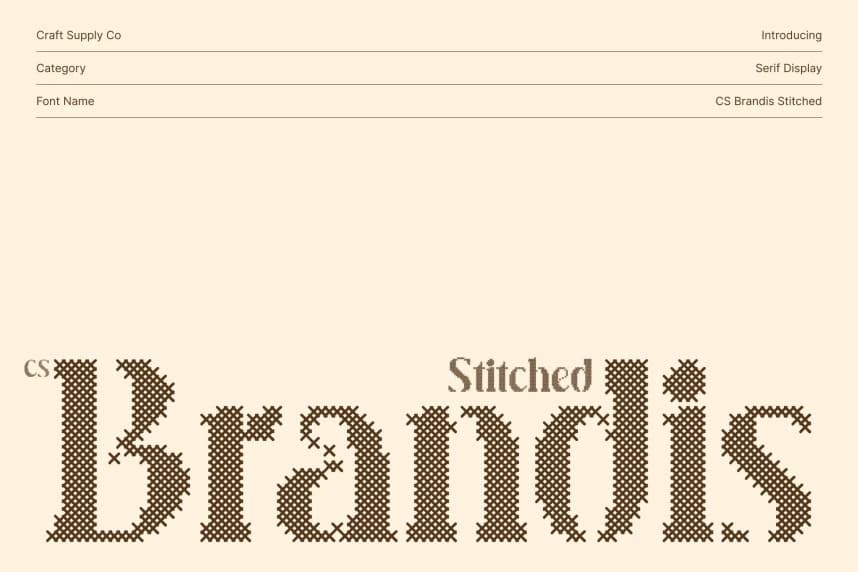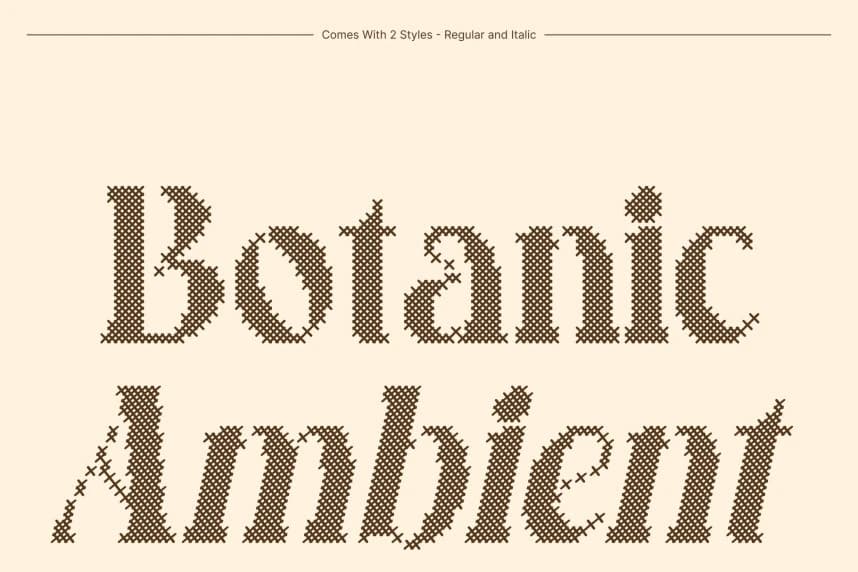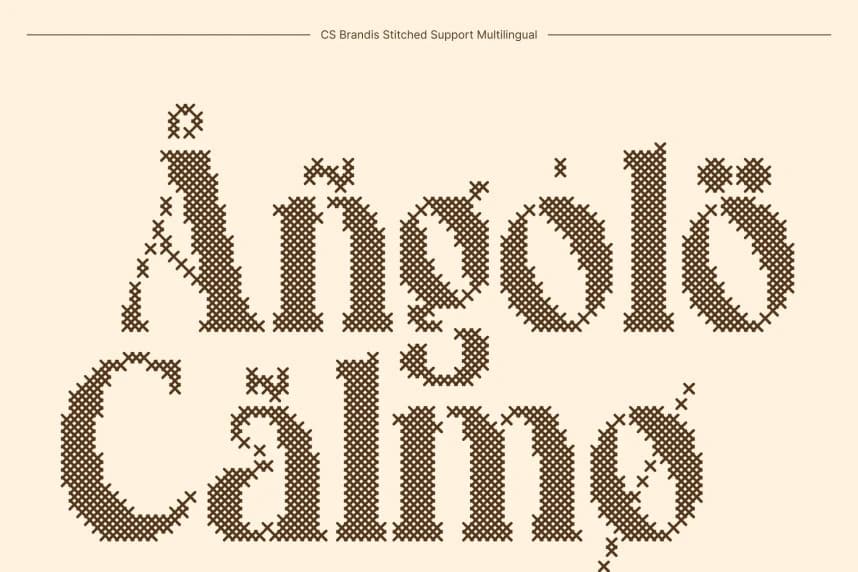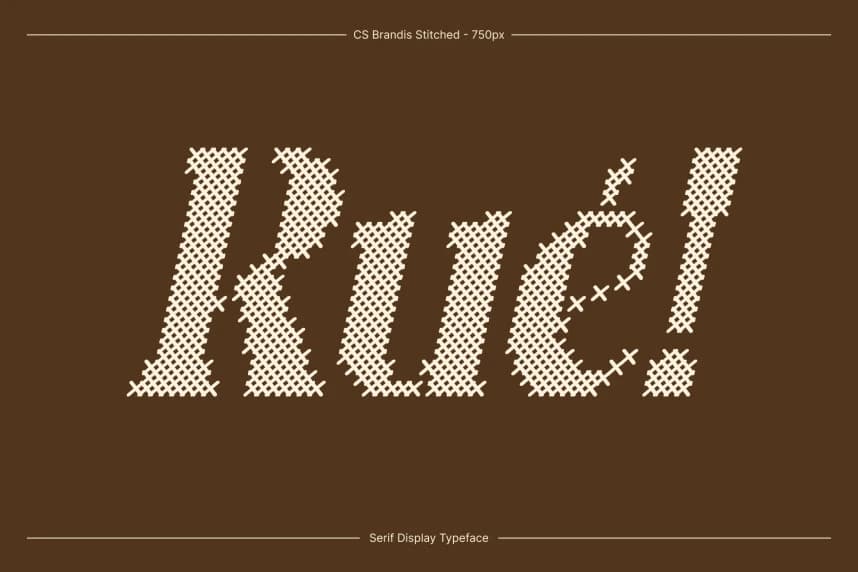
CS Brandis Stitched Font
CS Brandis Stitched Font – Modern Serif with Elegant High-Contrast Character Modern Serif with Handcrafted Elegance. This is a modern serif font designed to express elegance through timeless proportions and contemporary refinement.